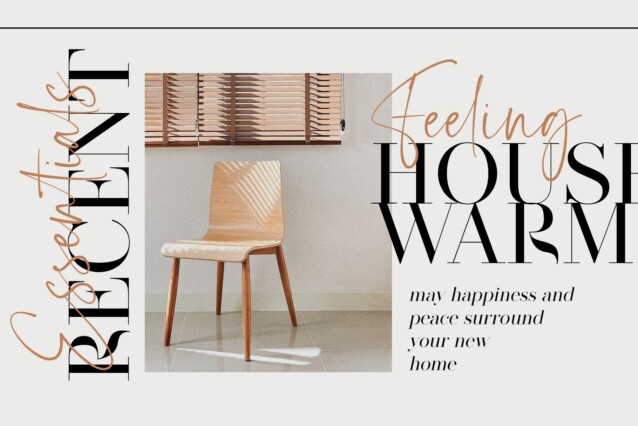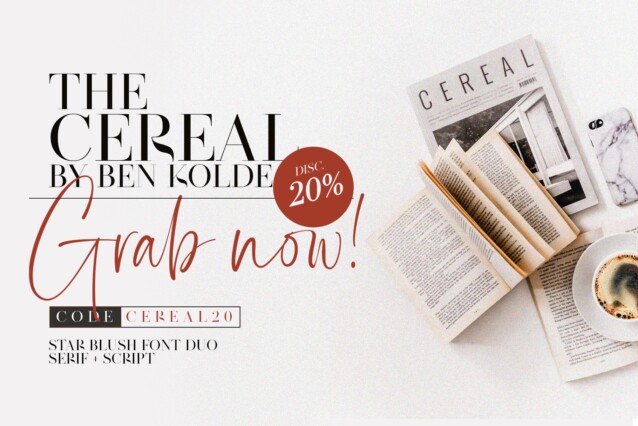
Star Blush Font Duo
Star Blush Font is a traditional font for the classic serif type with the addition of a script type. A simple font, with a thin size, adds an elegant and classy impression. Star Blush best used as a display for headings, logos, branding, magazines, product packaging and invitations, etc.